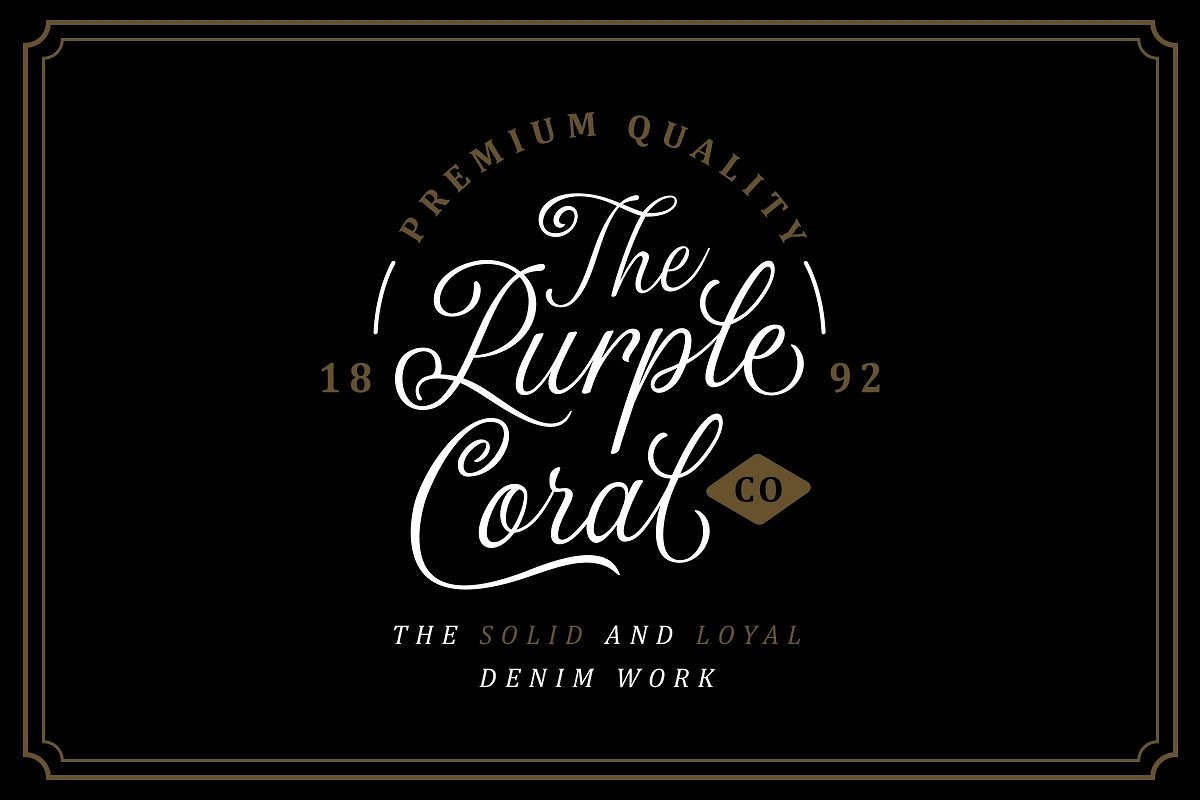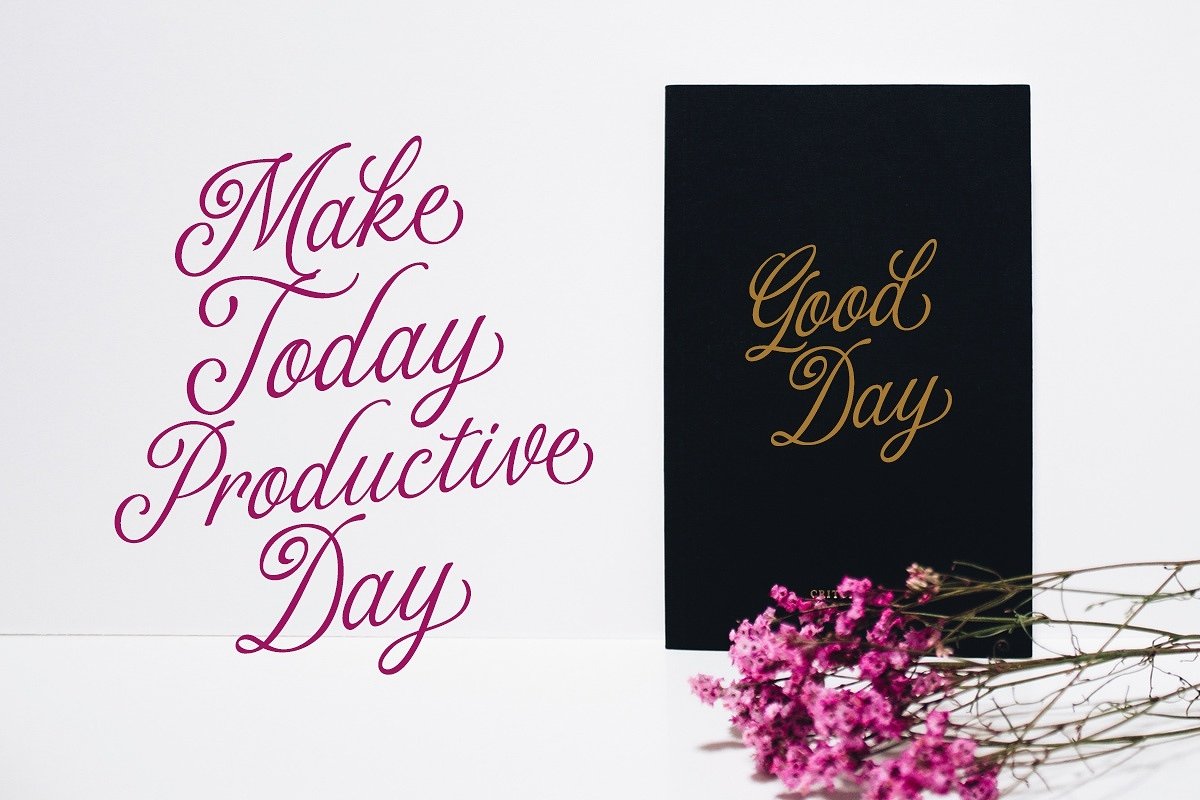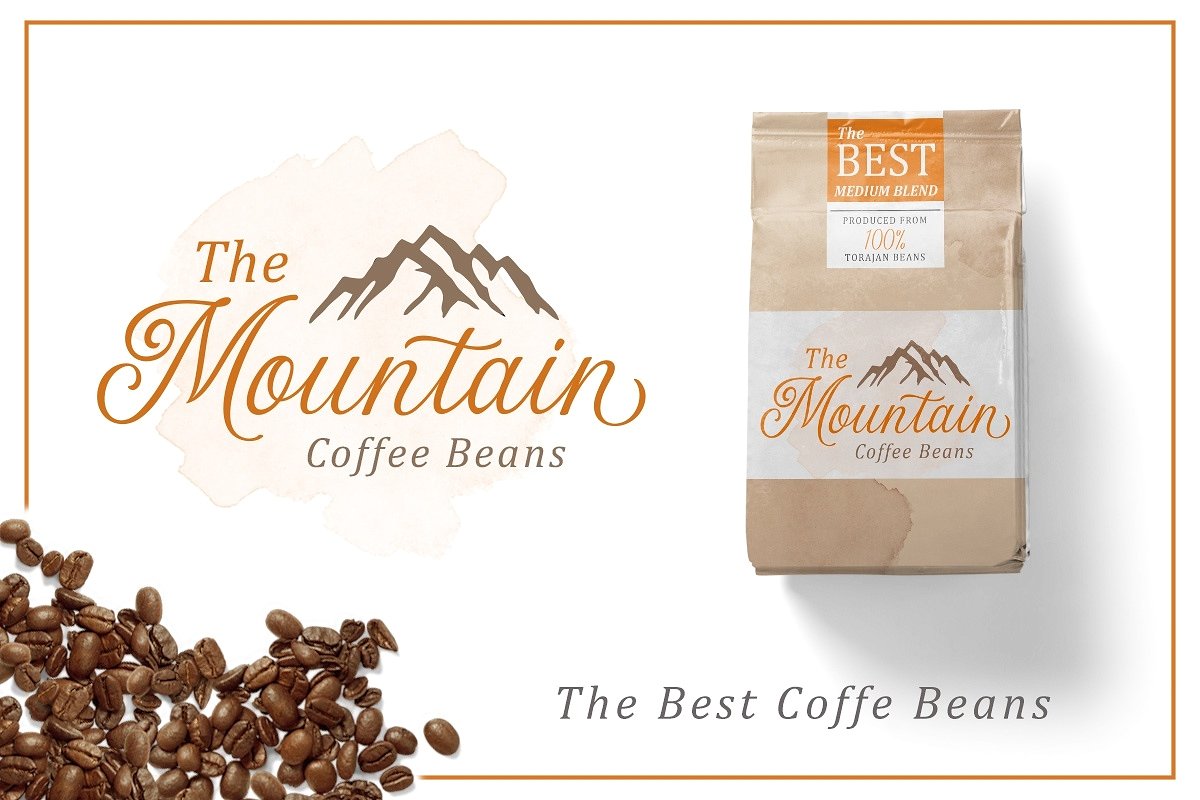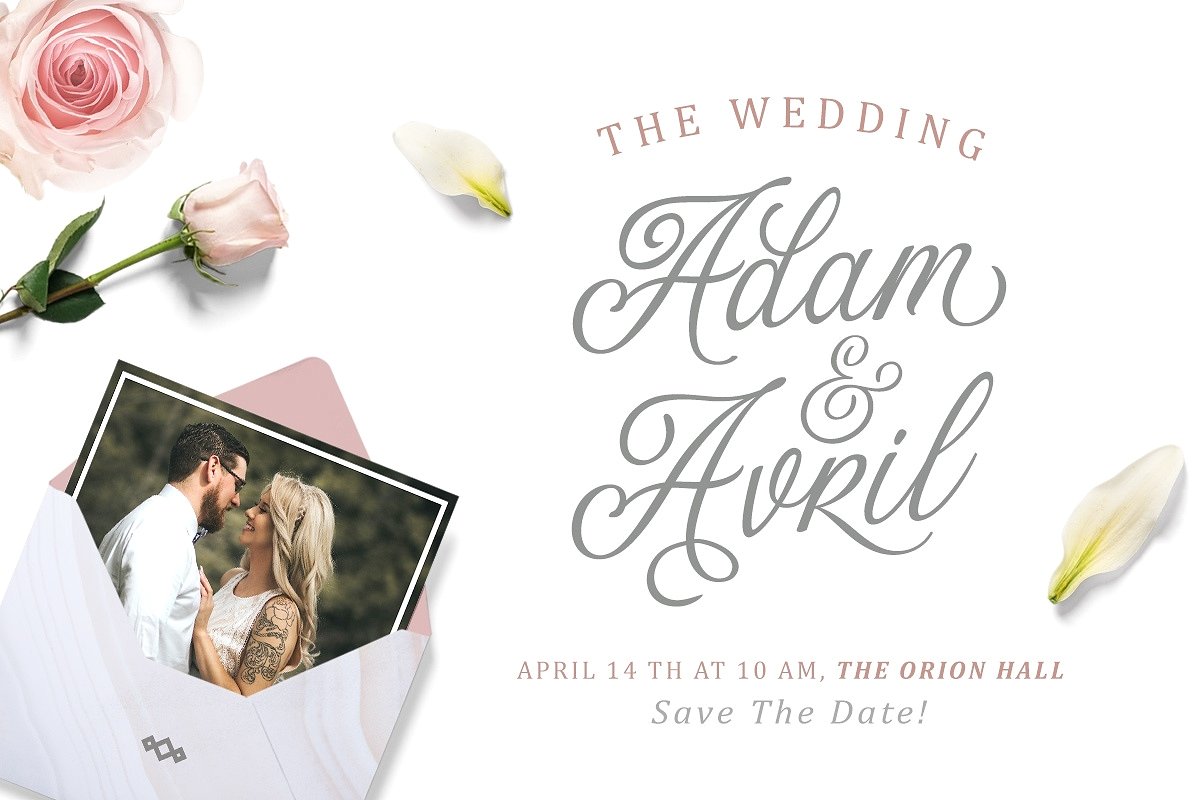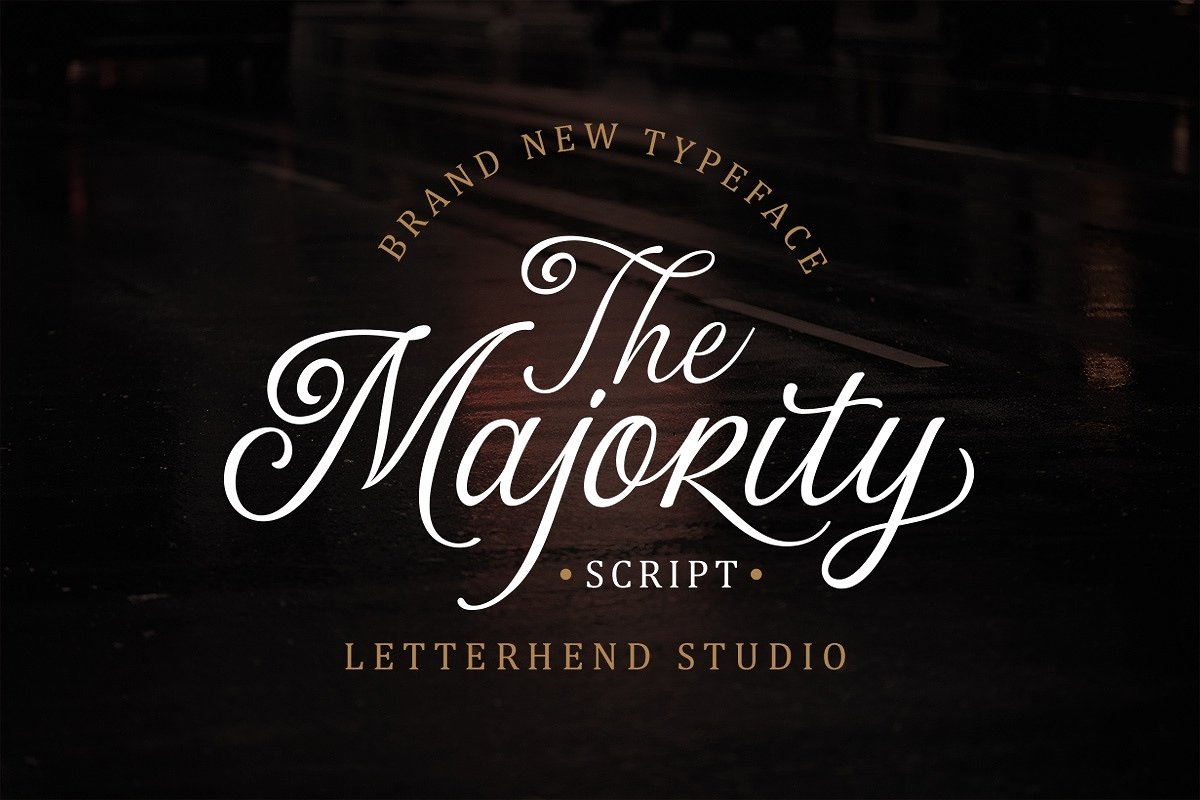
The Majority Script Font
Continues to be a very beautiful font calligraphy. Its’s perfect for you to give your design an authentic touch. We hope you enjoy the font. Introducing The Majority Font. The Majority . A classy script that beautifully flow and bring the luxury feel. This font is perfect to be used as tshirt design, logo / brand, signature, headline, lettering quotes, etc. It also comes in uppercase, lowercase, punctuations, symbols & numerals, stylistic set alternate, ligatures, etc